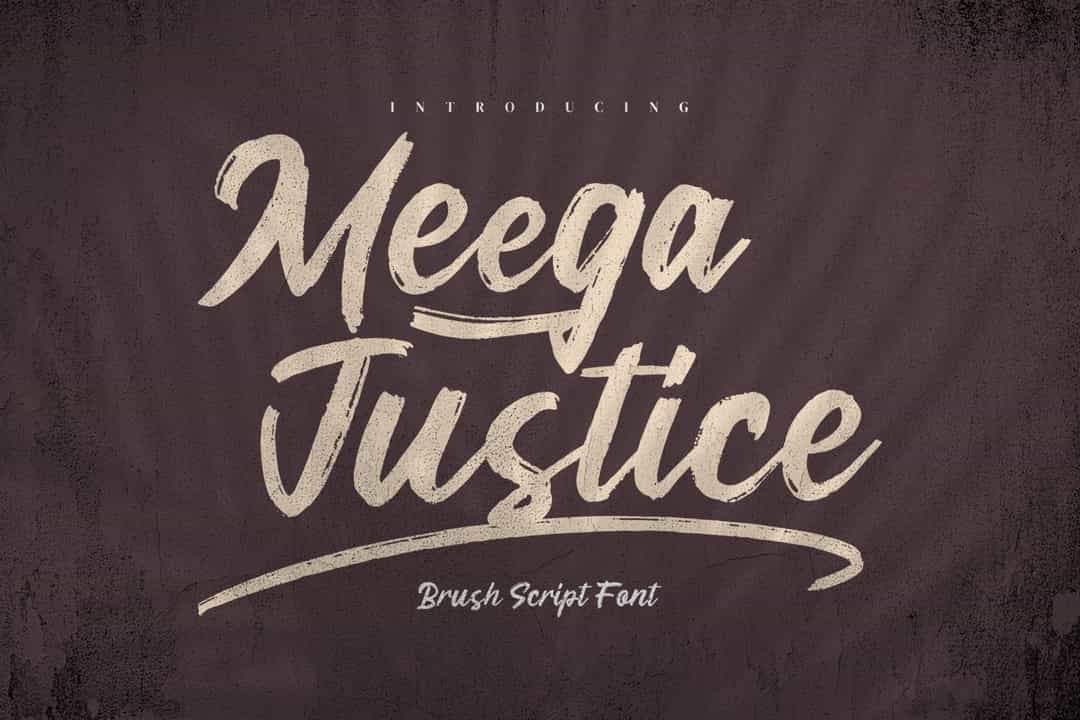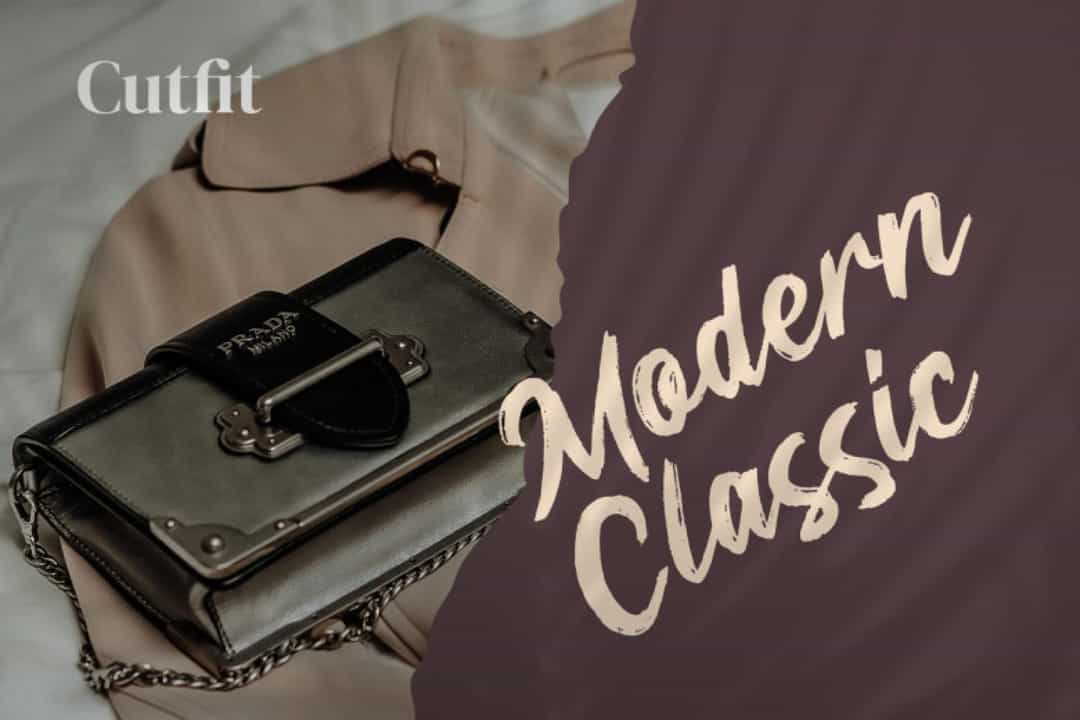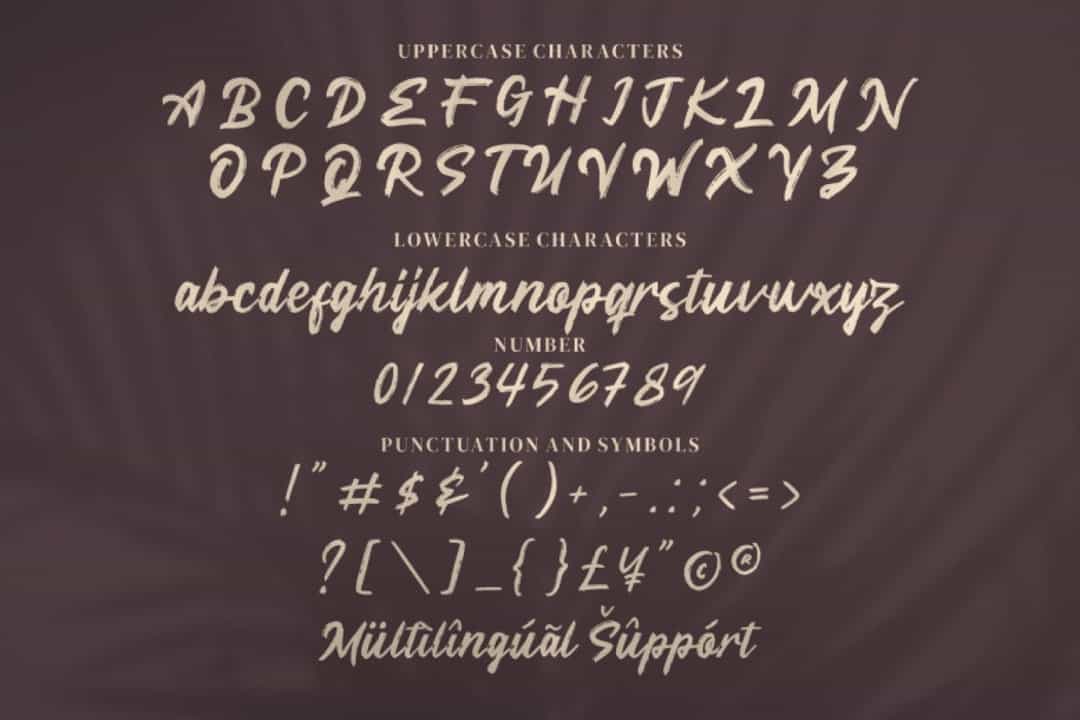
Meega Juctice is an impressive brush font. Perfect for greeting cards and headlines alike, Meega Juctice adds romance to any work it touches. PUA Encoded Font – Access all the beautiful Swashes and Glyphs instantly!